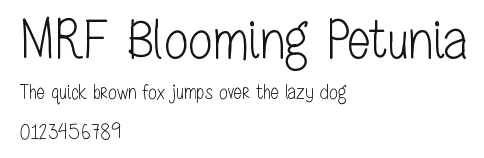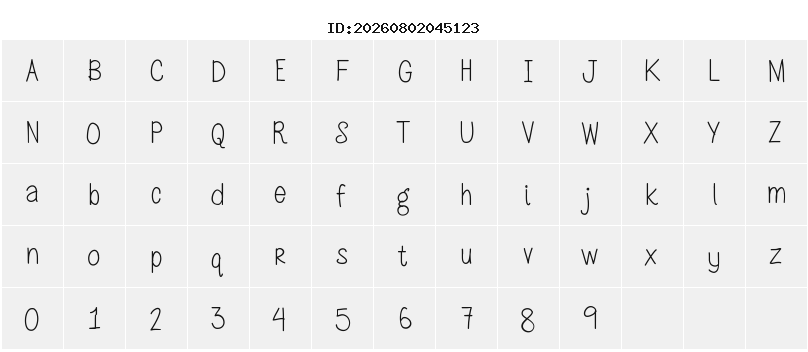
• Font Name: MRF Blooming Petunia
• Designer: Sabrina Schleiger
About MRF Blooming Petunia.ttf
MRF Blooming Petunia.ttf is a modern, elegant sans-serif font designed for ultimate readability and visual harmony. Perfect for branding, headlines, web design, and print materials.